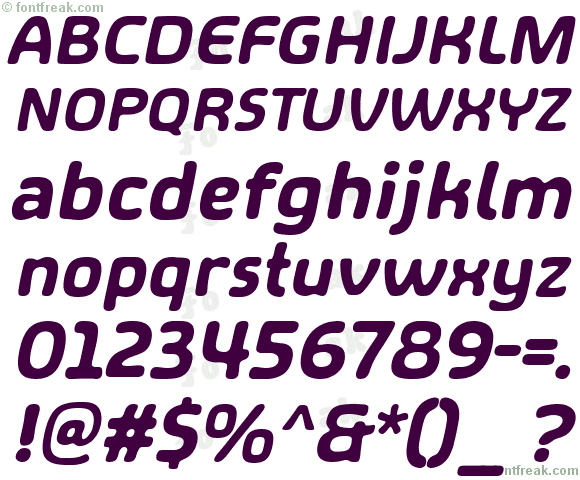
Share Happiness Around Italic
The Share Happiness Around Italic font, designed by Situjuh Nazara and released in 2017 under a freeware license, embodies a playful yet elegant spirit that appeals to a wide range of design needs. This font belongs to the display category, characterized by its bold, italicized letters that convey a sense of motion and energy. The stroke weight is relatively thick, providing a strong presence, while the overall contrast is moderate, allowing for clarity and readability in various applications. The spacing is well-considered, ensuring that each letter maintains its individuality while still creating a cohesive flow.
Share Happiness Around Italic is particularly suited for vibrant use cases. It shines in wedding invitations, where its stylish flair can set an uplifting tone. Restaurant menus can also benefit from its lively character, making dishes appear more inviting. Additionally, this font works wonderfully for festive event posters, capturing the excitement of celebrations. Small businesses looking to create eye-catching branding materials will find this font perfect for logos and promotional graphics, as its unique personality can help convey a joyful brand message.
Targeting graphic designers, small business owners, and content creators, this font is an ideal choice for those who wish to infuse warmth and charm into their projects. Its balance of playful elegance makes it versatile across different design contexts, ensuring that it can appeal to a broad audience.
What sets the Share Happiness Around Italic font apart is its ability to evoke positivity and friendliness while remaining stylish and contemporary. The combination of its bold italic style and thoughtful design elements makes it a standout choice for anyone seeking to make a memorable impression. For those interested, a Share Happiness Around Italic font free download is readily available, allowing users to infuse their projects with joy.